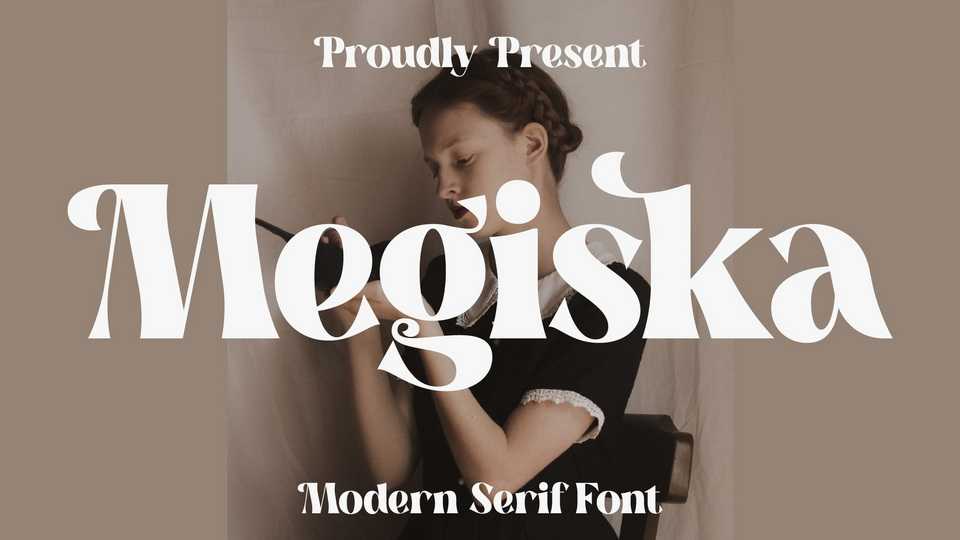
Download Megiska font, a modern, trendy and chic serif typeface that has own unique style and classy look. Megiska font is perfect for an elegant and luxury logo, book or movie title design, fashion brand, magazine, clothes, lettering, quotes, and so much more.